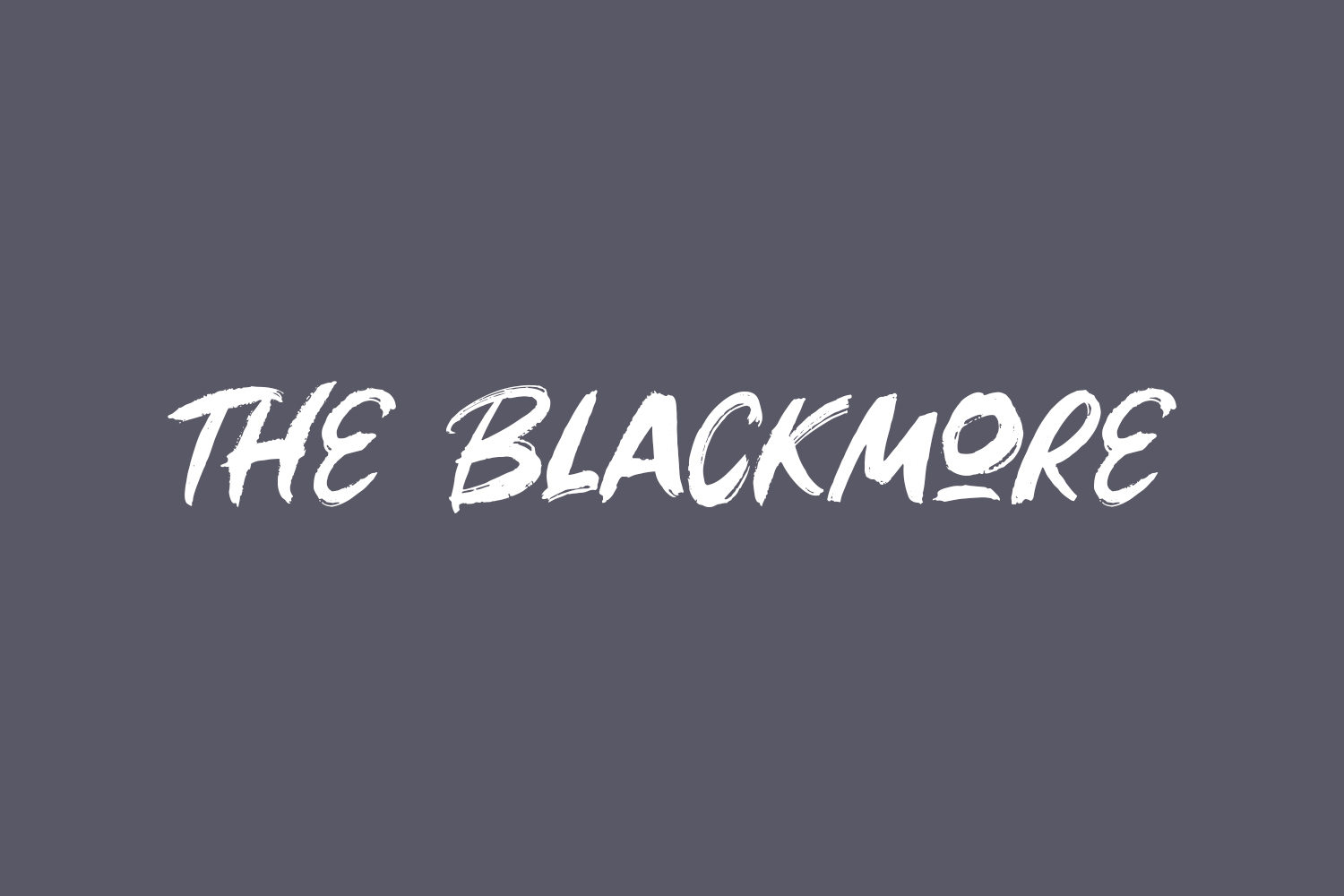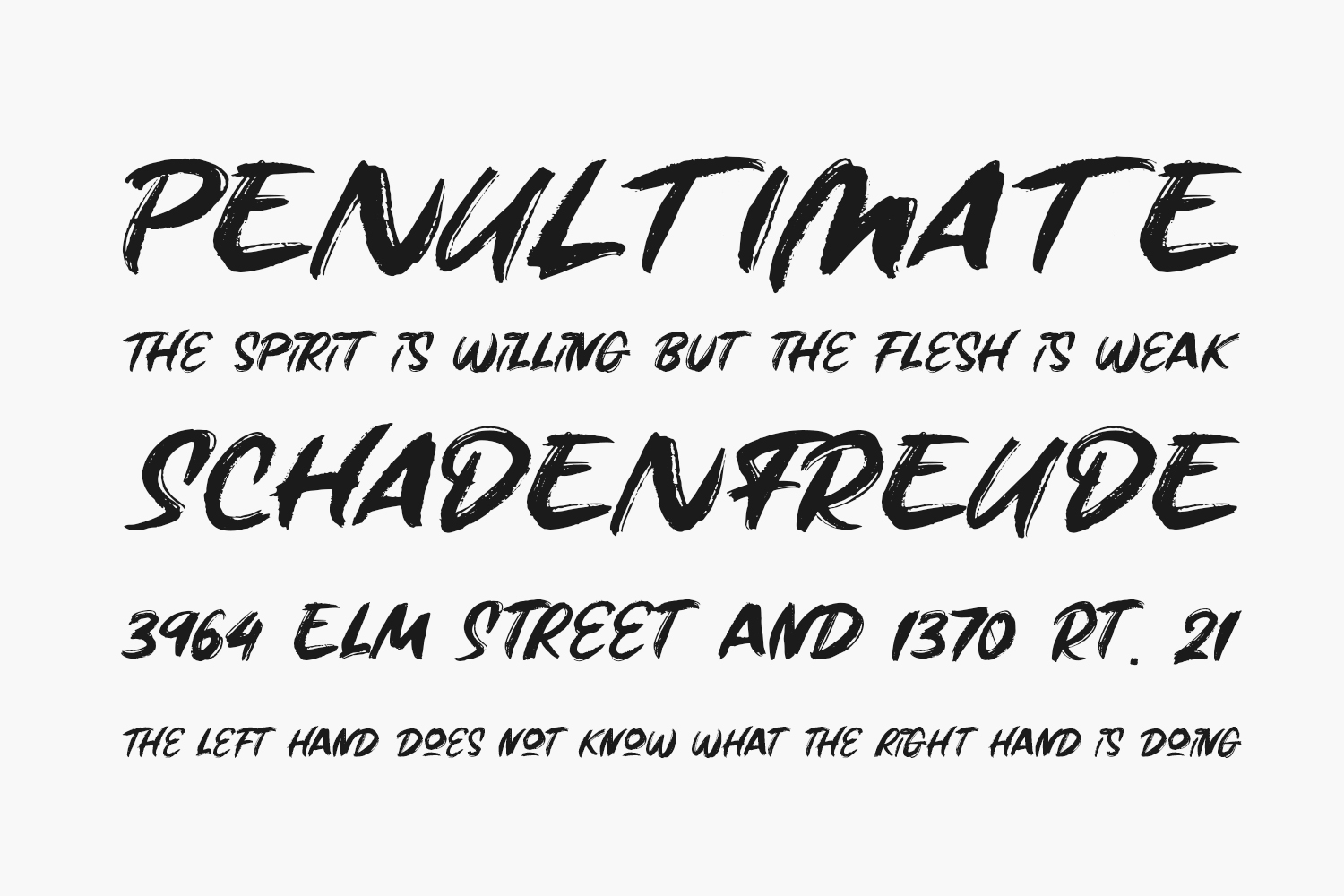
Introducing The Blackmore Free Font: a striking and stylish brush display font. Meticulously designed with intricate details, it adds a touch of boldness to any project. Versatile and captivating, this font is a valuable addition to your collection, promising to elevate your creations regardless of the subject matter. Download the font for free if you need it for personal use or purchase the full version for commercial use.
Designed by Letterhend Studio